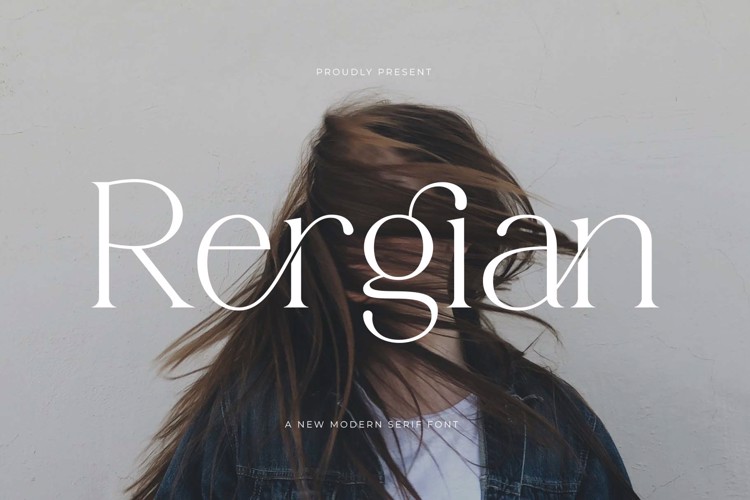
Rergian Font
Rergian is an elegant high-contrast Didone serif with a delicate, refined character. Fine hairline serifs, dramatic thick-thin contrast, and graceful swashes lend a sophisticated, high-fashion style to logos, wedding stationery, luxury branding, editorial design, and upscale packaging. Free for personal use; a commercial license is available from the designer.